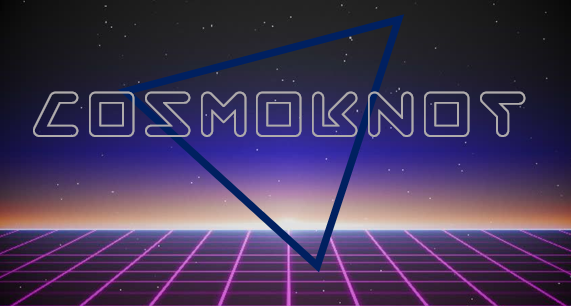
After using the simple hourglass logo for many years, I wanted to create something new that displays the title of the page. This font lent itself well to an idea from the back of my mind
The hourglass will still remain as the icon for the page, but this was a fun project to design
Quite a step outside your regular style too. Well done.
Excellent outline font, love the consistency in the use of angles and rounded terminals.